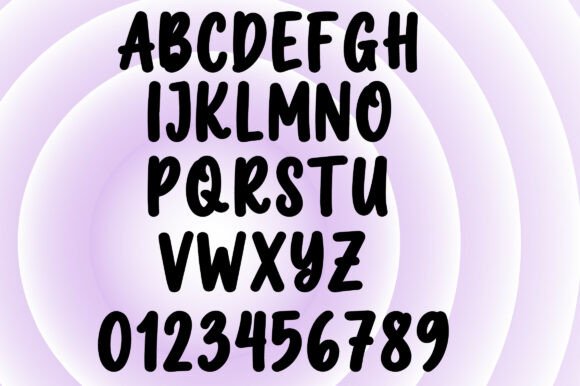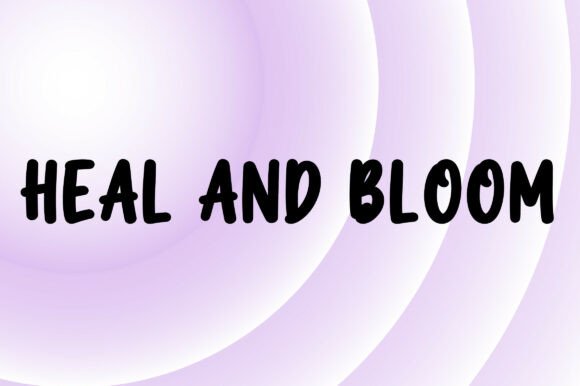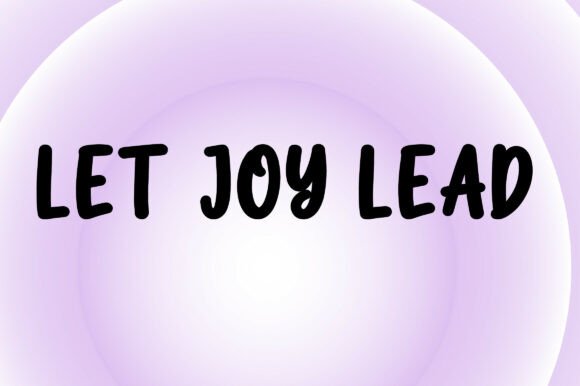
Introduction to Keira Font
KEIRA is a bold display font with a playful handcrafted style and soft rounded charm.
Its uppercase letterforms feature thick black strokes, smooth curves, tall shapes, and slightly irregular details that create a friendly, fun, and eye-catching look Designed with uppercase letters A–Z and numbers 0–9, KEIRA is perfect for logos, branding, posters, packaging, invitations, children’s designs, social media graphics, and creative projects that need a cute and memorable typeface.